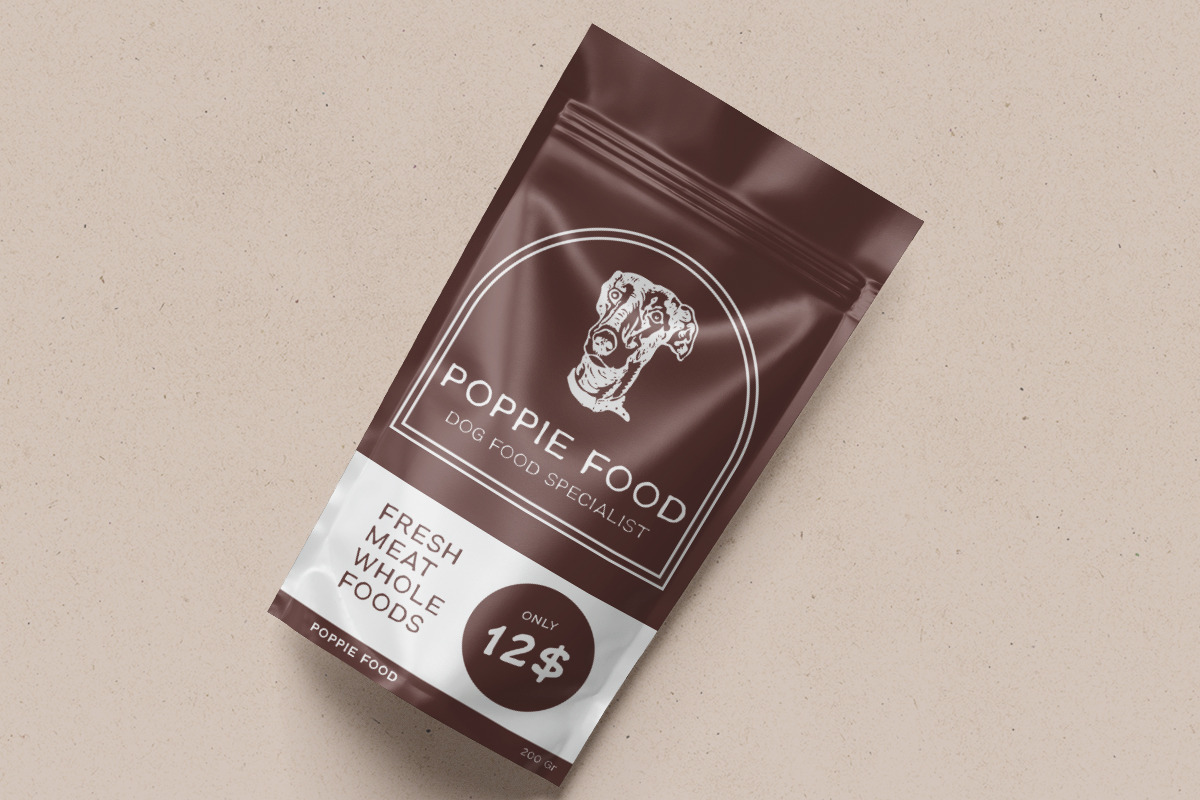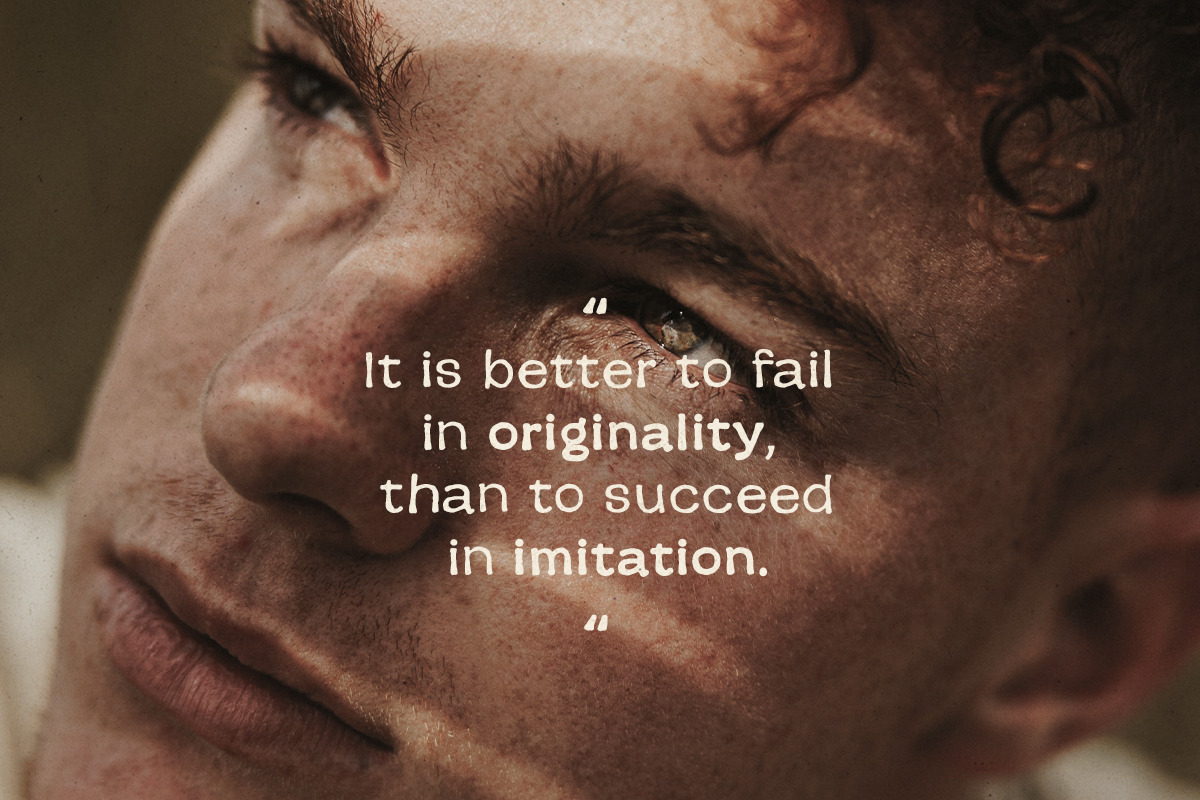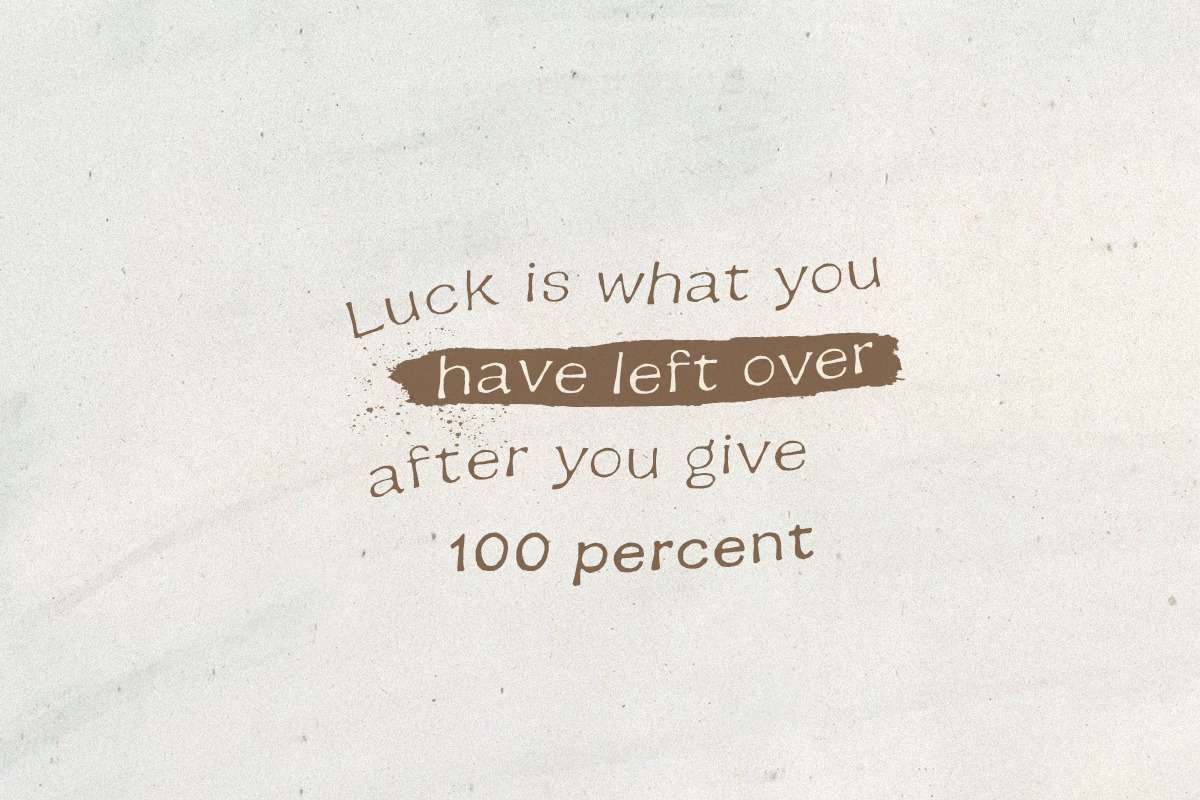
Earth Tone - Organic Sans Family
Introducing, Earth Tone - Organic Sans Family
Earth Tone is a handmade font family with natural and organic feels! Contain three weight. Including Light - Regular - Bold. You can use this font for every project. Suitable for branding logo, hand lettering, or apparel design. When you want a handmade touch in your design, this font will never disappoint. This font family also support multilingual, number and symbol.